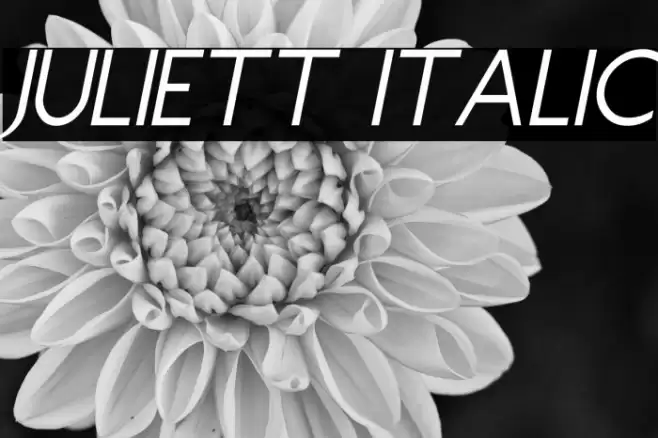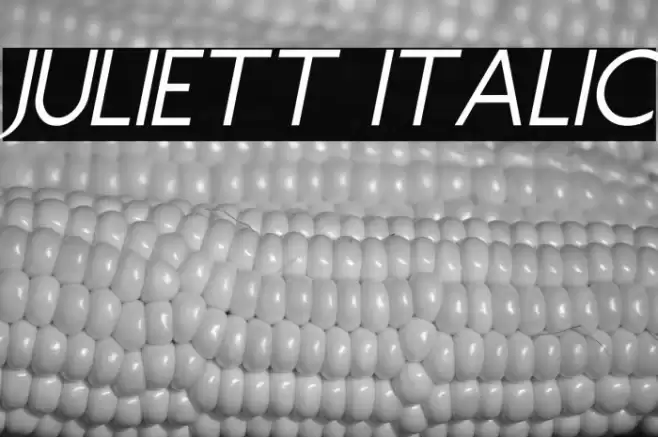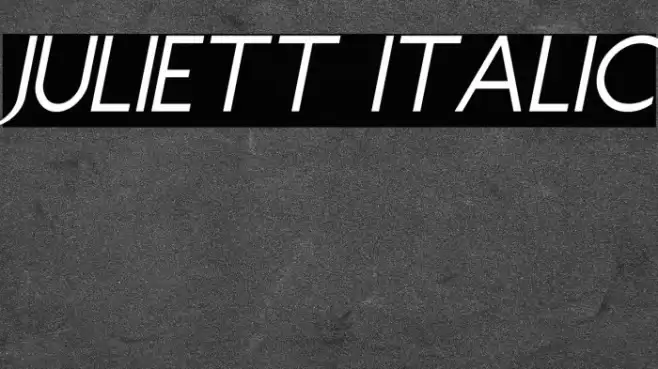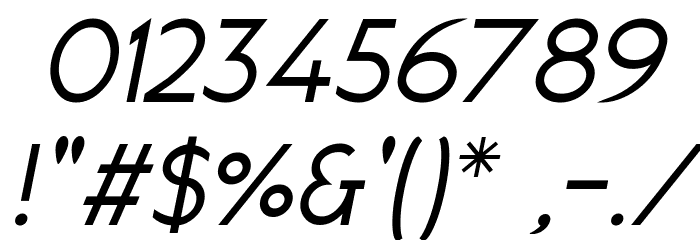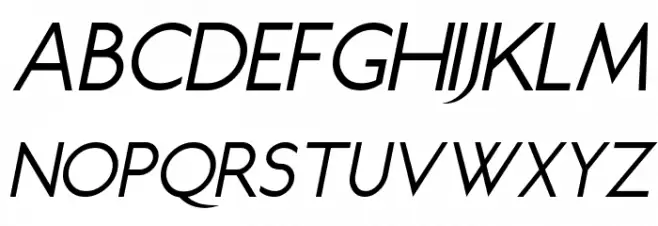
Juliett Italic Font
Juliett Italic Description
This font exhibits a sleek and modern italic style, characterized by its clean lines and subtle slant. The uppercase and lowercase letters maintain a consistent flow, enhancing readability while adding a touch of elegance. The numerals are well-proportioned, and the special characters are designed to complement the overall aesthetic. Its smooth curves and sharp angles create a harmonious balance, making it suitable for various design applications.
A sleek, modern italic font with clean lines and elegant curves from Uncategorized fonts.
- Proposed Projects: Ideal for branding, editorial design, and digital interfaces where a modern and sophisticated look is desired.
- Use Case: Headlines, Body text, Logos